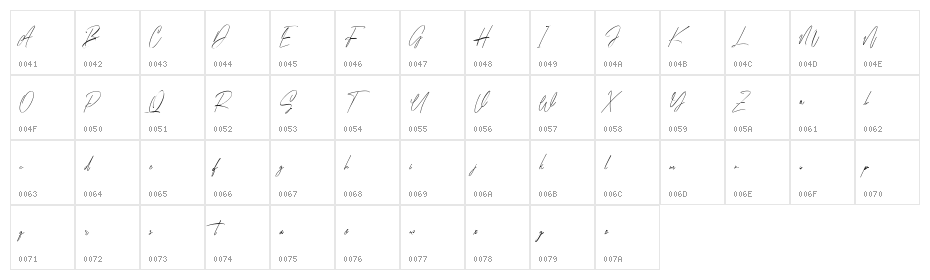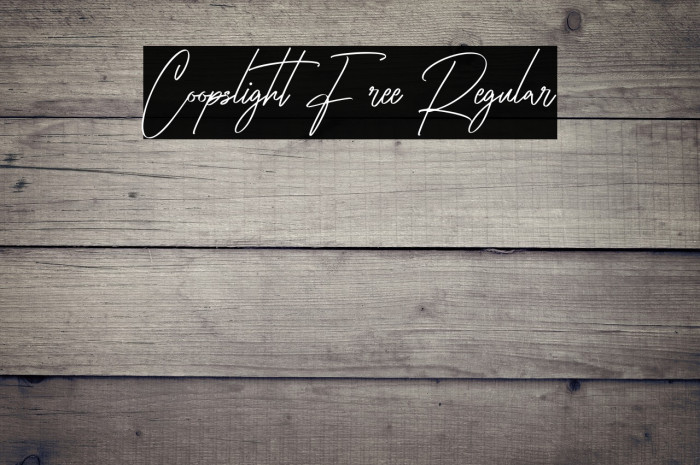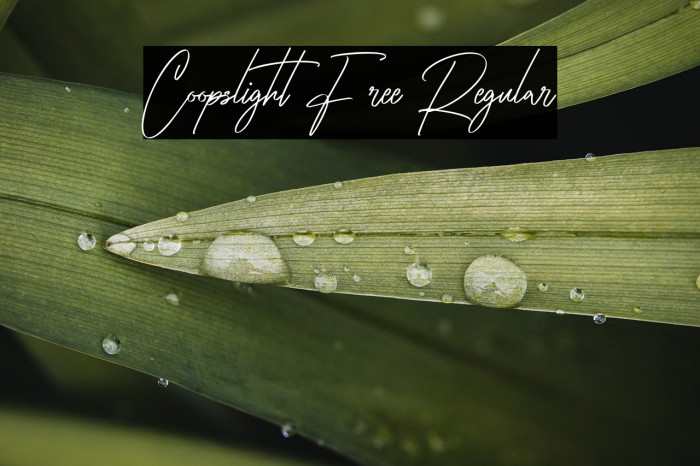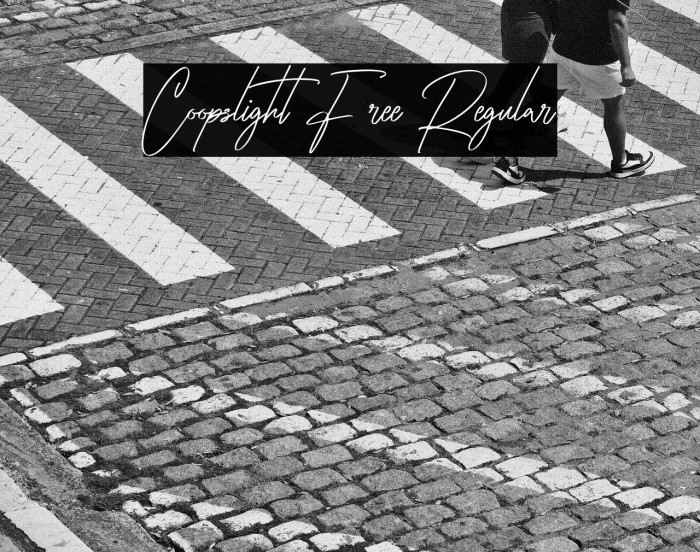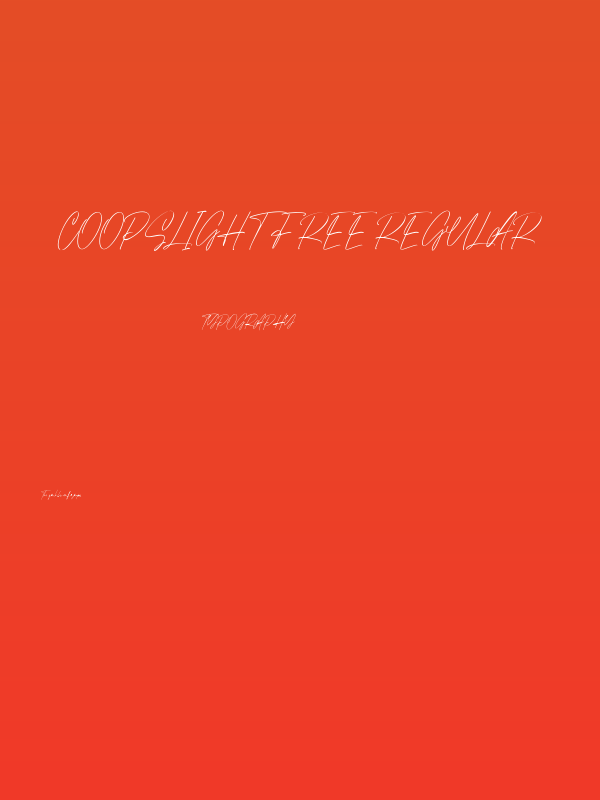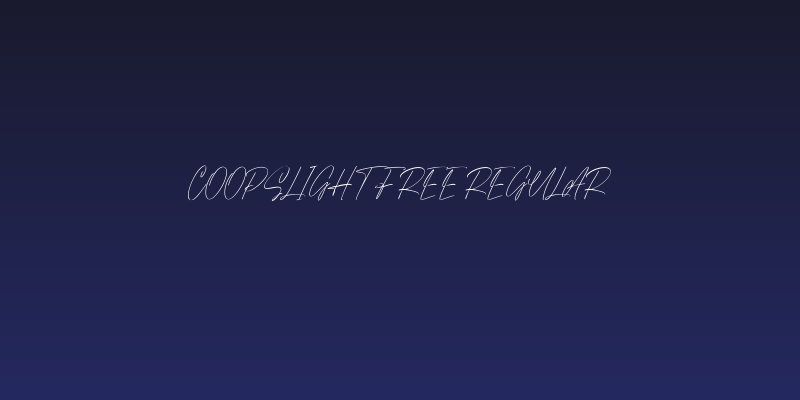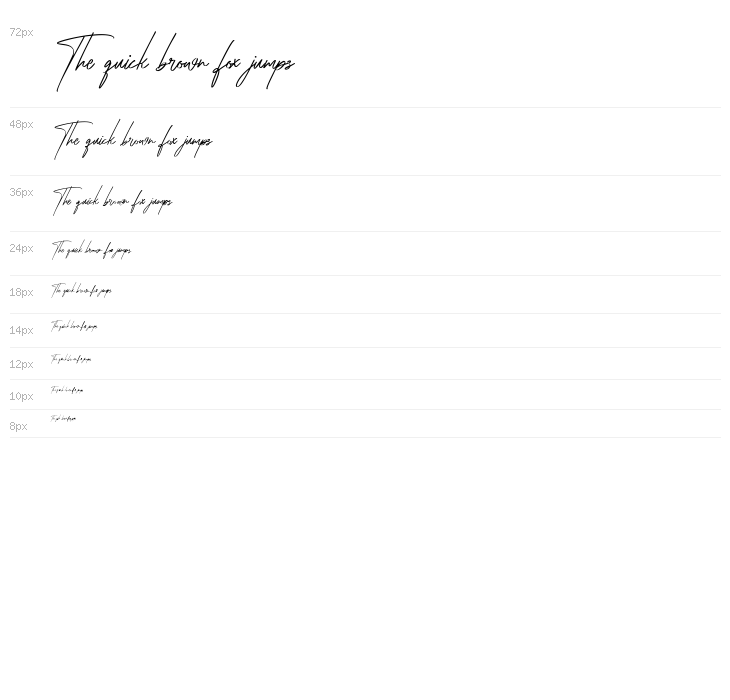
Coopslight Free Regular Font
Coopslight Free Regular Description
This font exudes a sophisticated and elegant script style, characterized by its fluid and graceful strokes. The letters are connected in a seamless manner, creating a continuous flow that mimics natural handwriting. The uppercase and lowercase letters maintain a consistent style, with elongated ascenders and descenders that add to the font's refined appearance. The numerals and special characters are designed to complement the overall aesthetic, ensuring a cohesive look across all text elements. The font's delicate lines and subtle curves make it ideal for projects that require a touch of elegance and sophistication.
| Overall Style | Elegant |
| Use Case | Logos, Invitations, Branding |
| Proposed Projects | Ideal for wedding invitations, elegant branding, personal stationery, and high-end product packaging. |